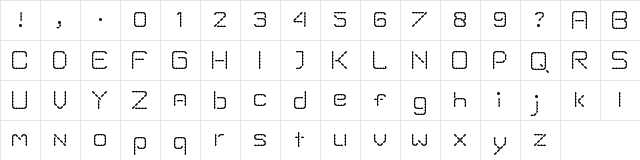
Selliebell Regular
| Designer | Sellie |
Design Context for Selliebell Typeface
Selliebell is a composed and adaptable typeface that performs quietly and consistently across a wide range of design contexts.